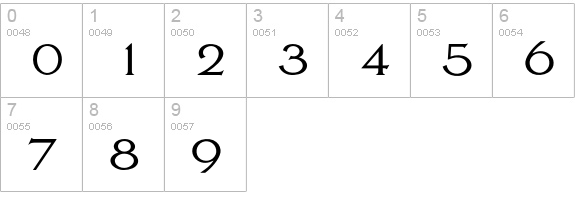
LaguneLight Font Details
Introducing LaguneLight, a beautifully crafted font that combines elegance and versatility in perfect harmony. With its sleek lines and sophisticated curves, LaguneLight makes a statement of modernity and refinement in any design project. This font's clean and minimalist appearance ensures readability, making it ideal for a wide range of applications. Whether you're designing a logo, creating a website, or working on a branding project, LaguneLight will effortlessly enhance your visual communication. One of the standout features of LaguneLight is its ability to convey a sense of effortless creativity. Its graceful strokes and balanced proportions give your text a sense of fluidity and elegance, making it a perfect choice for projects that require a touch of sophistication. But what truly sets LaguneLight apart is its availability. We understand the importance of accessibility in the design world, and that's why we're proud to offer LaguneLight as a free font. Yes, you read that right – LaguneLight is freely available to download at FontsMarket.com. Now, you can bring your design visions to life without any restrictions. LaguneLight's availability as a free font allows you to experiment, explore, and create without limitations. It's a font that empowers designers and fosters a creative environment where imagination knows no bounds. So, why wait? Elevate your design projects with LaguneLight and experience the freedom of a font that is not only visually captivating but is also freely accessible. Download LaguneLight today at FontsMarket.com and let your creativity soar to new heights.